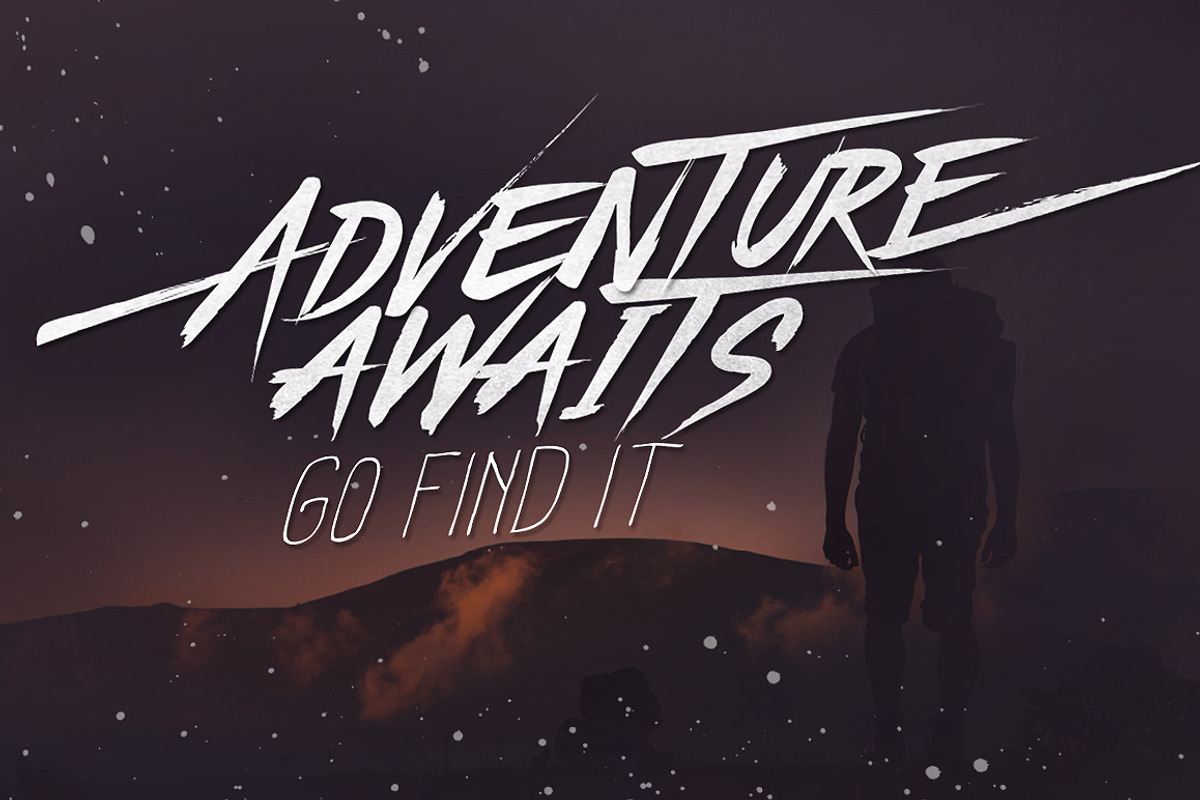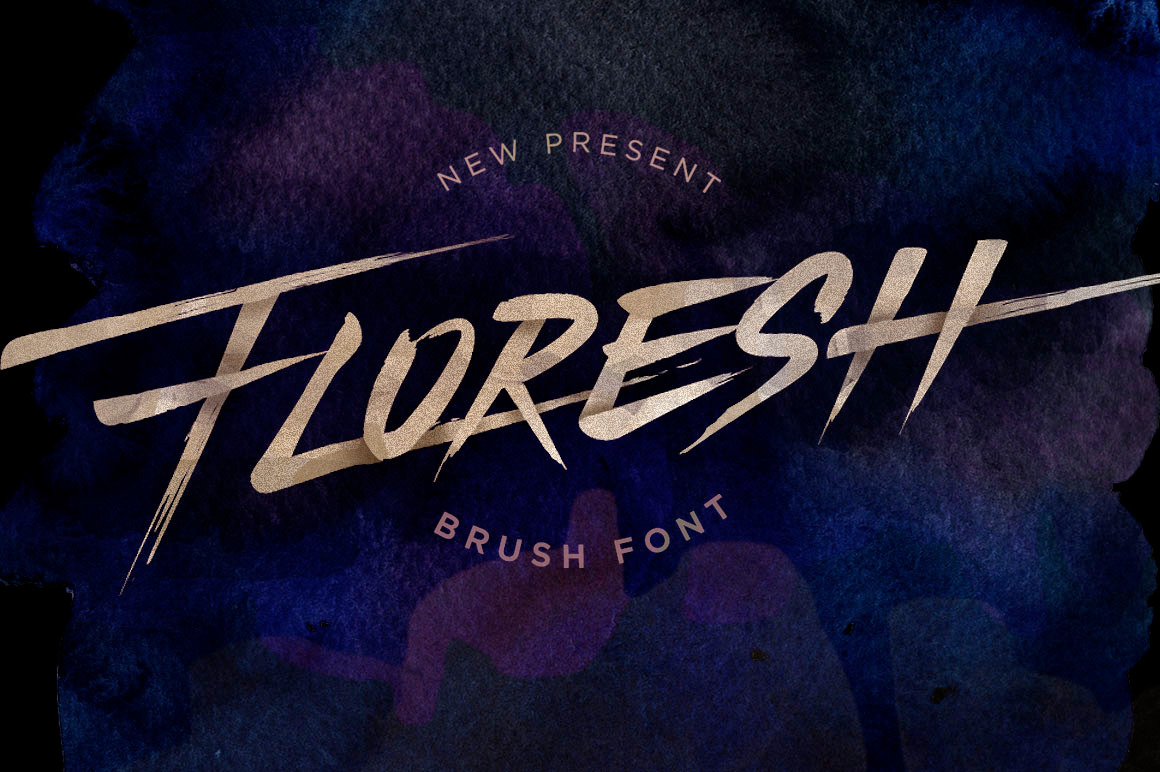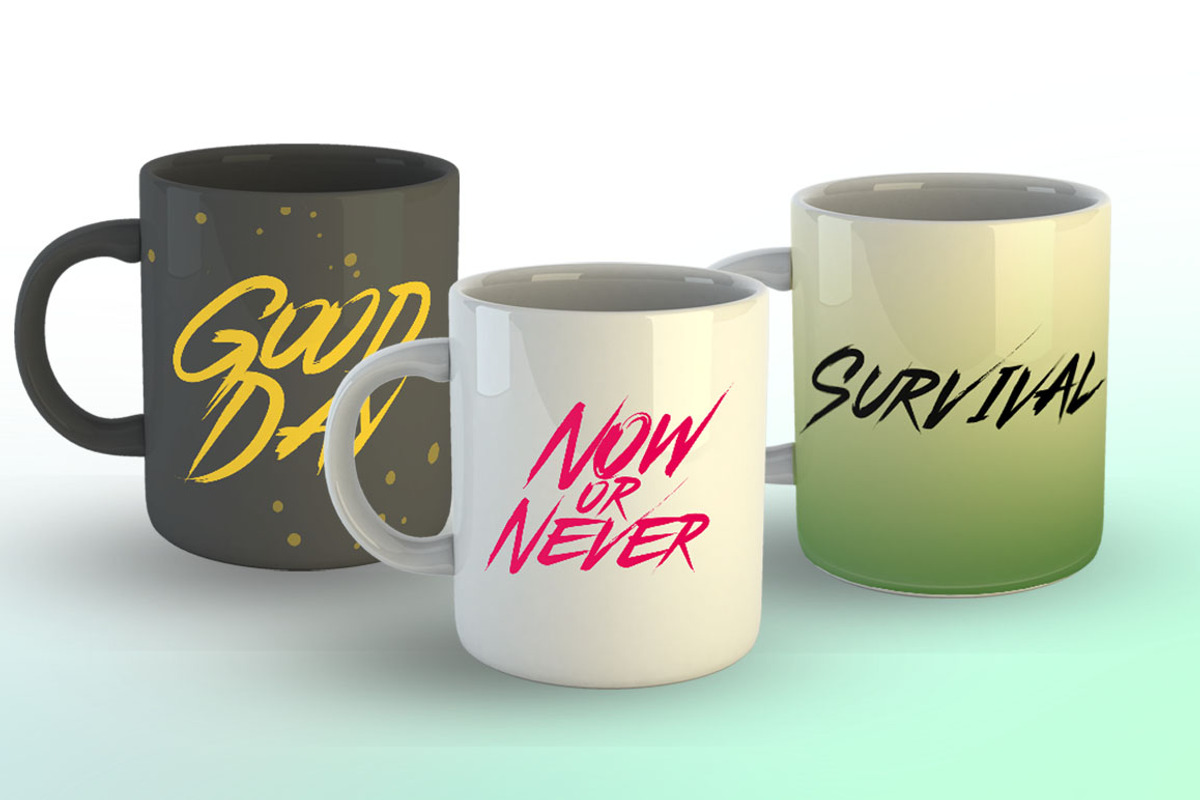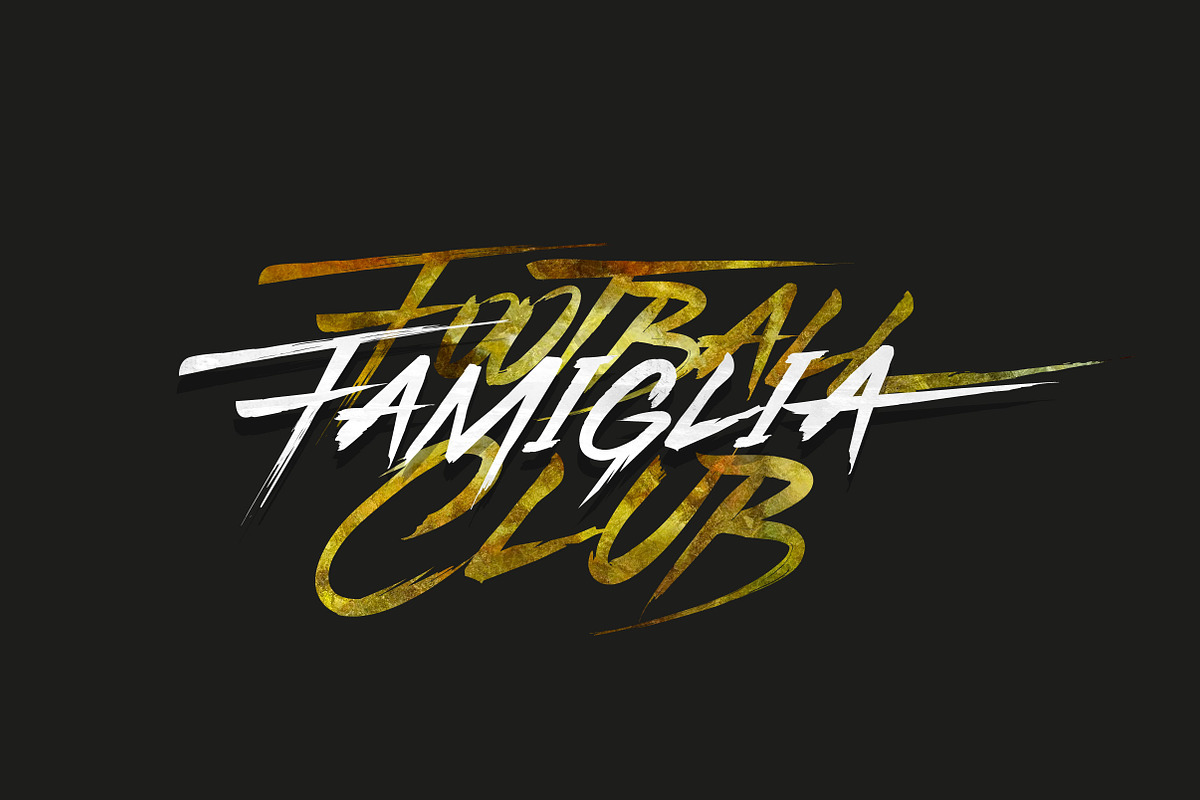
Floresh Typeface | Brush Font
Floresh Typeface is hand brush typeface designed to help you create the look of stunning custom hand-lettering. Floresh Typeface comes with upper and lowercase characters, punctuation, numerals and OpenType features with Stylistic Alternates and ligatures.
Floresh Typeface is very best choice fonts for : Quotes, Posters, Logos, Print Ads, Digital Ads, Promotion Product, video bumper, etc.